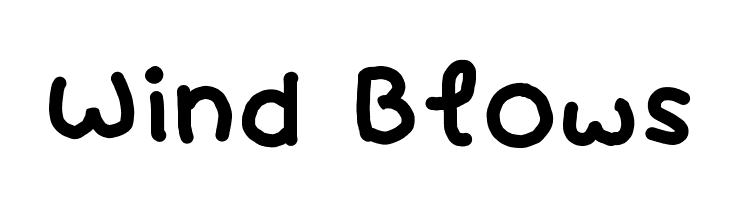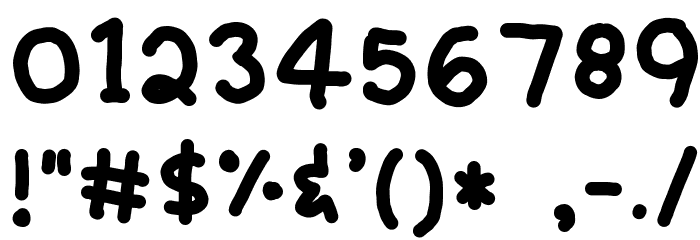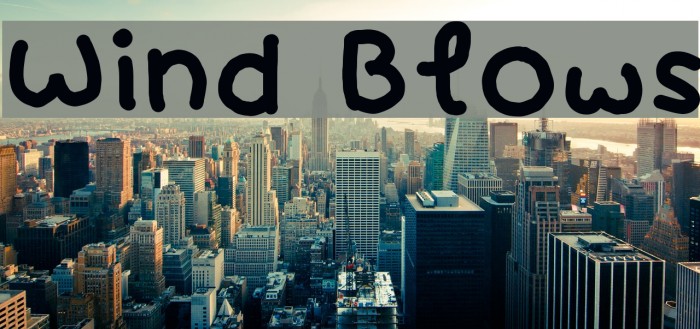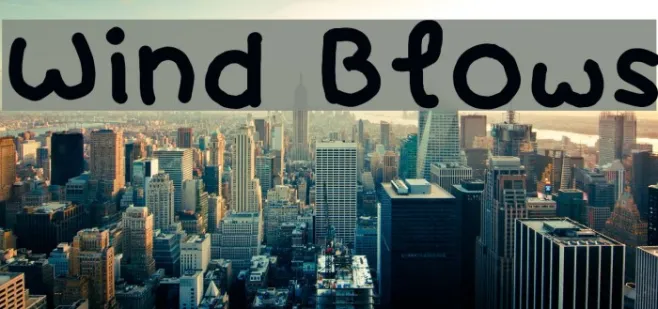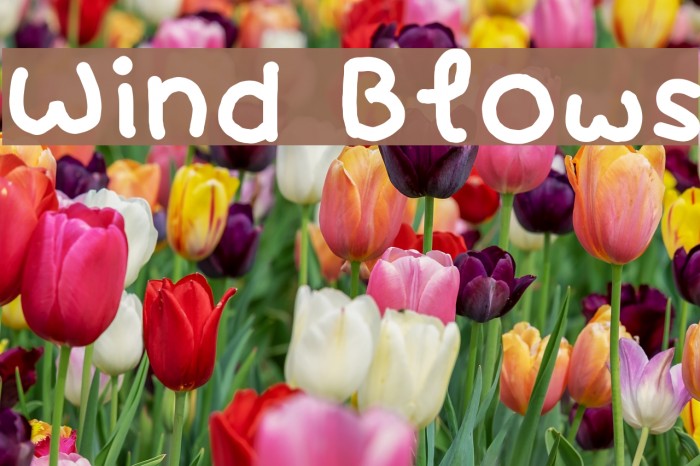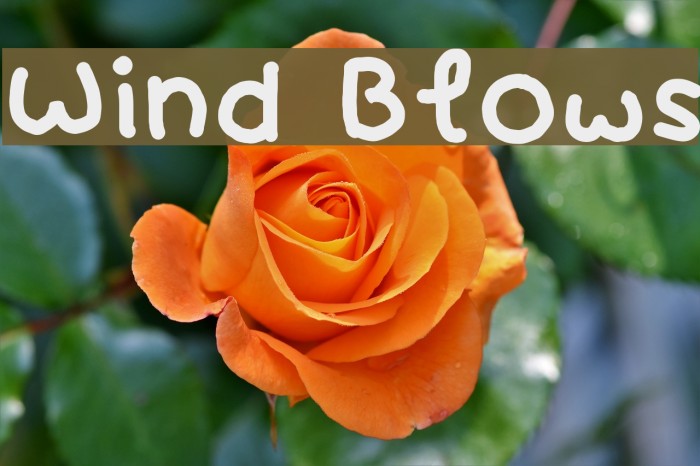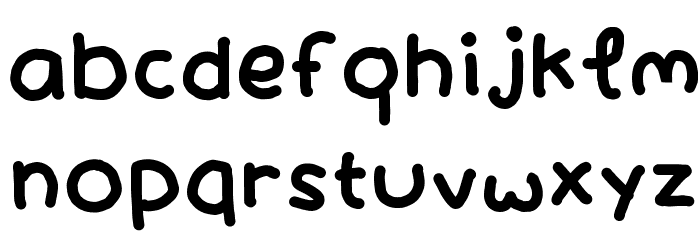
Wind Blows Font
This playful and whimsical font features rounded, hand-drawn characters that exude a sense of fun and creativity. Each letter is crafted with a casual, informal style, making it perfect for projects that require a touch of personality and warmth. The strokes are consistent in width, giving the font a uniform appearance while maintaining its lively character. The numbers and special characters follow the same playful design, ensuring a cohesive look across all text elements. This font is ideal for projects that aim to capture a youthful and energetic vibe.
A playful, hand-drawn font with rounded, whimsical characters.
• Proposed Projects: Children's books, greeting cards, playful branding, and casual invitations.
• Category: Handwritten
• Contrast: Low
• Overall Style: Playful
• Use Case: Headlines, Logos